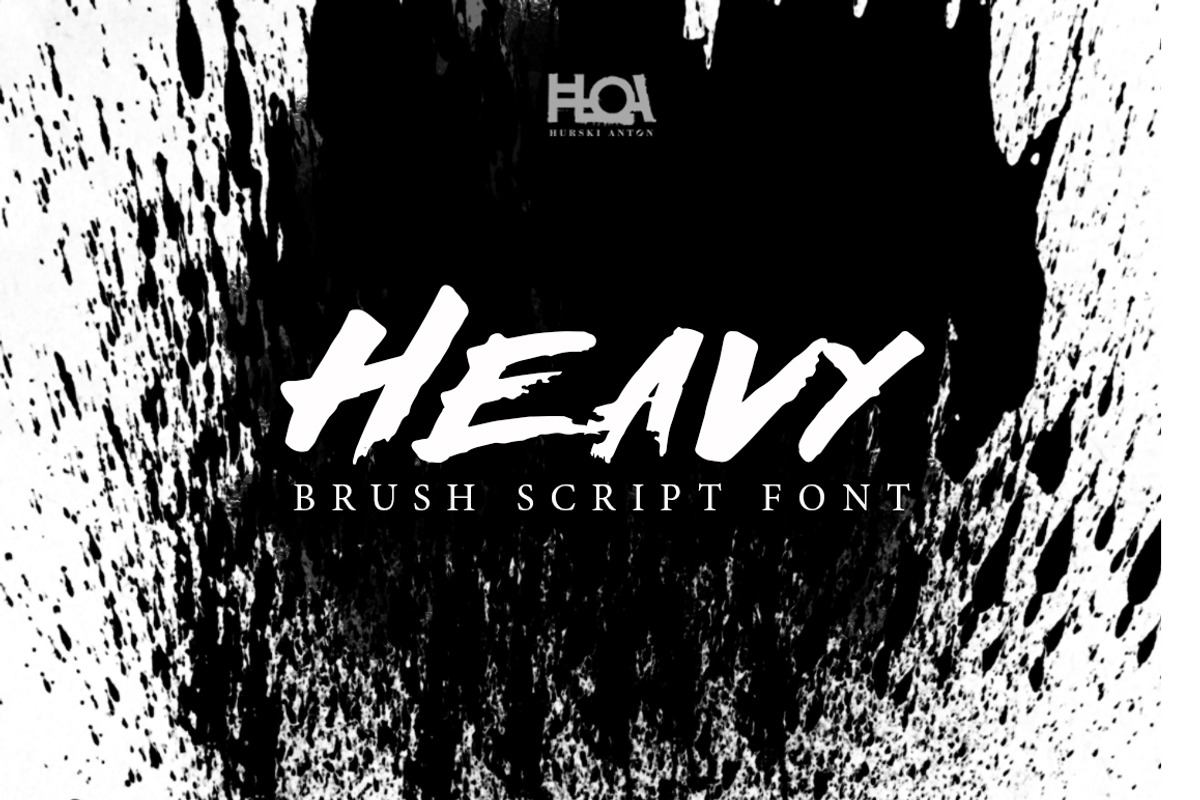
Heavy|Brush script font Free Download
Heavy | Brush Script Font Free Download
Heavy | Brush Script Font Free Download is a bold and expressive typeface that combines the raw energy of brush strokes with the fluidity of handwritten design. Perfect for creative projects that demand attention, this font is ideal for logos, posters, branding, invitations, and more. Its thick, powerful strokes make it stand out in any design, adding an artistic, energetic touch to your work. Whether you're designing for a modern brand, crafting eye-catching promotional materials, or working on a personal project, Heavy | Brush Script Font Free Download lets you explore its dynamic style in personal projects before purchasing a commercial license. Add strength and creativity to your designs with this visually striking brush script font.